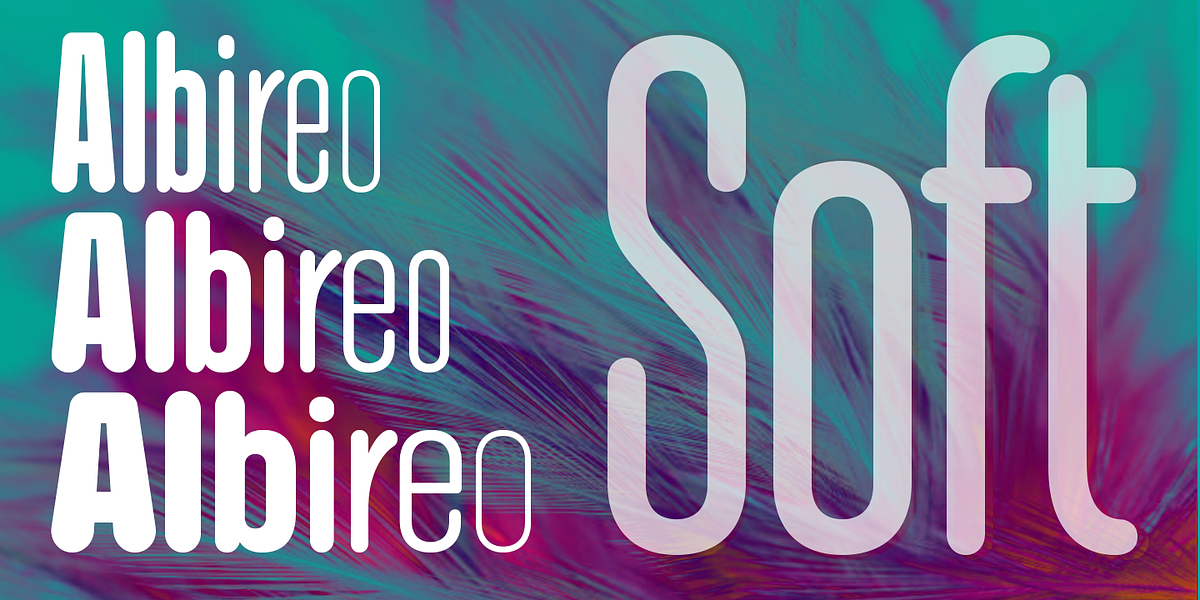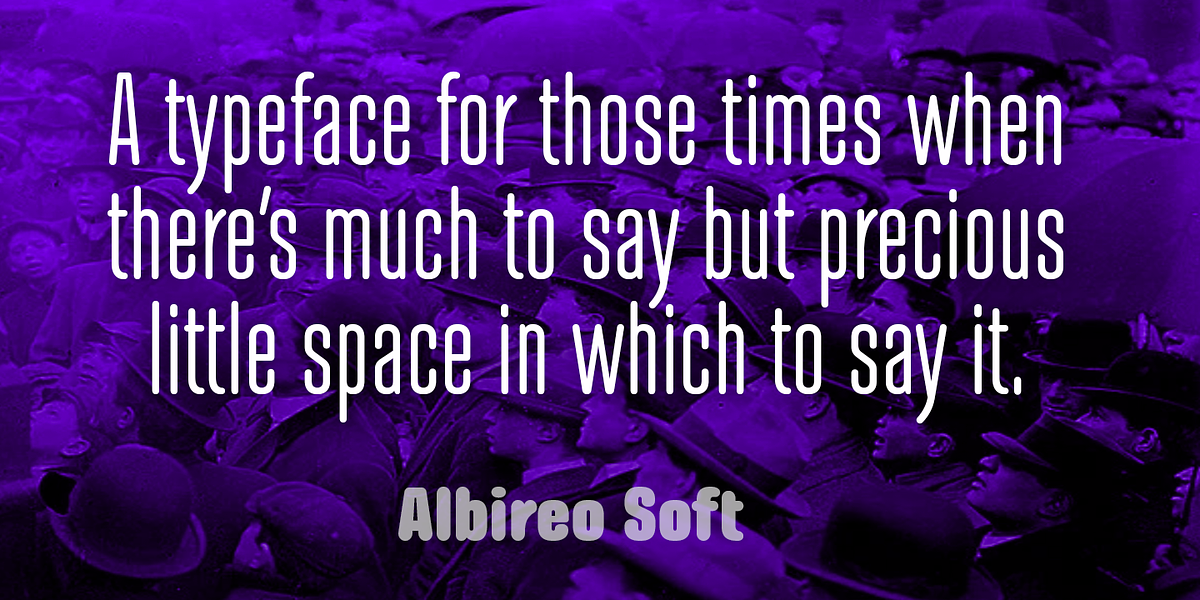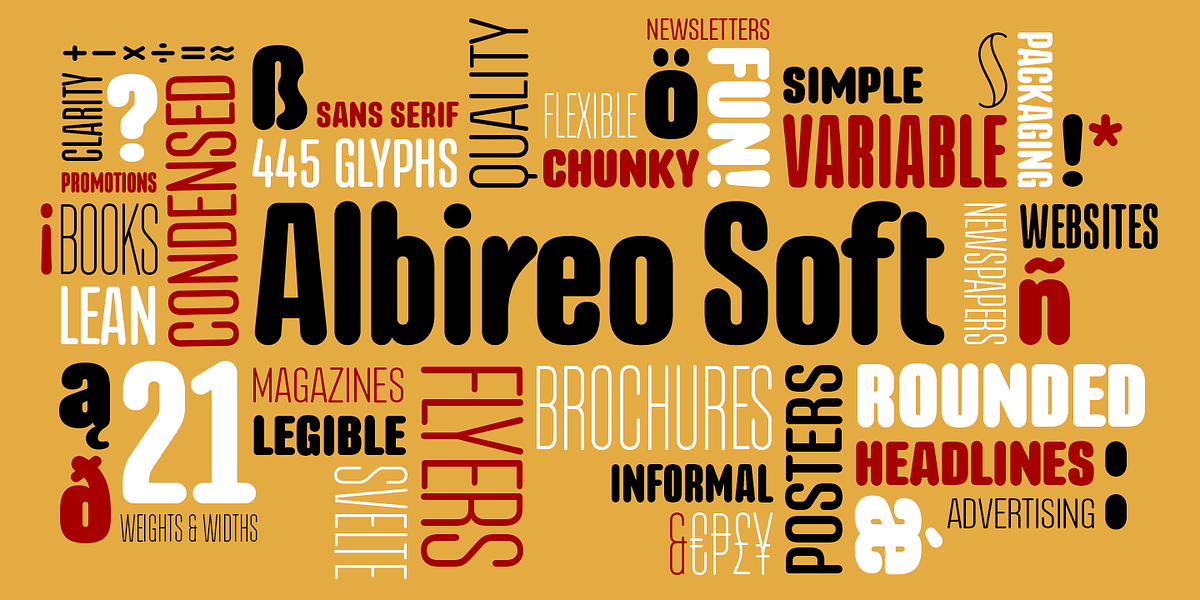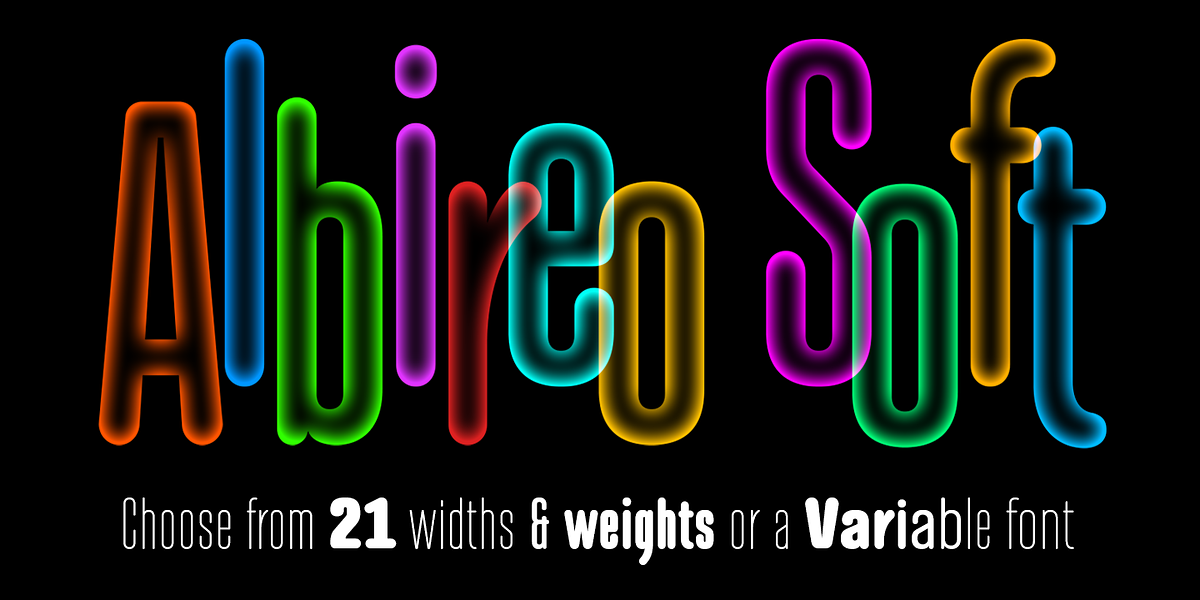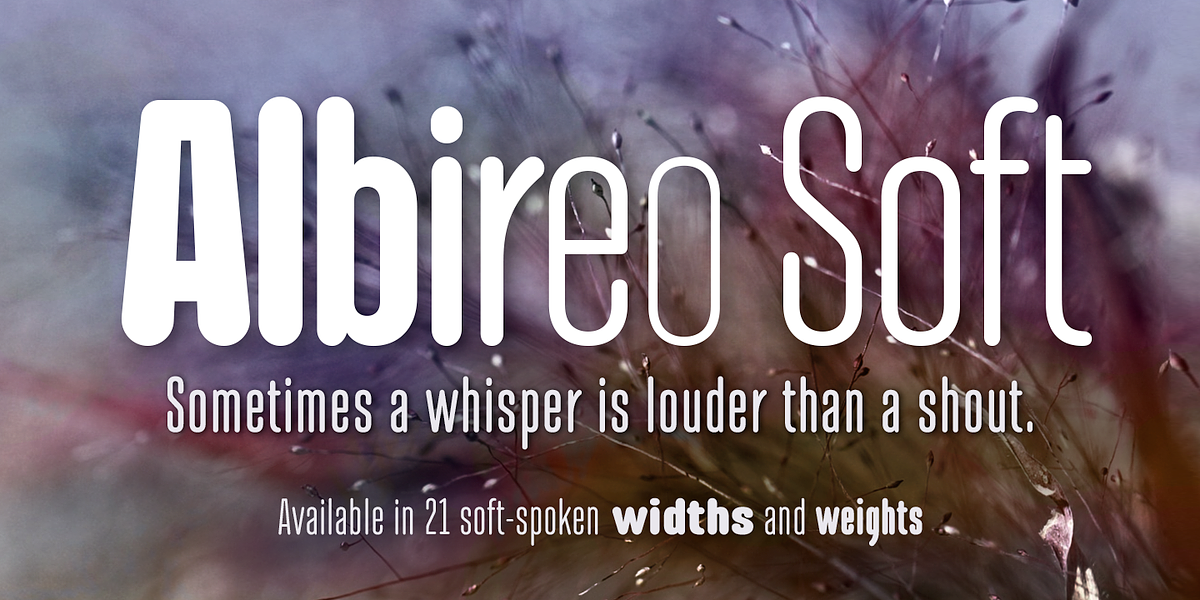
Albireo Soft
Albireo Soft is a rounded sans-serif typeface designed by Cory Maylett Design. It's characterized by its friendly and legible appearance, making it suitable for a variety of applications such as packaging, headlines, logos, brochures, and digital use. The font comes in seven weights across three condensed widths, offering versatility for different design needs. Albireo Soft also includes a variable font that covers all weights and widths, allowing for precise customization.